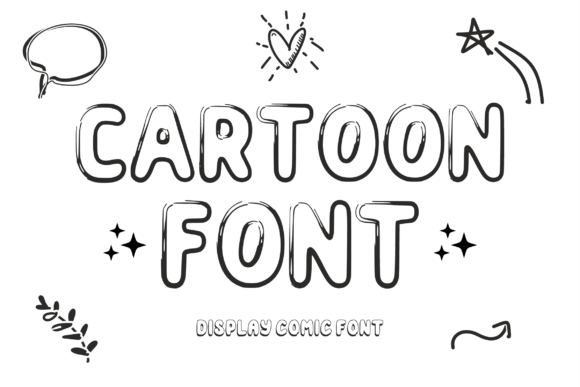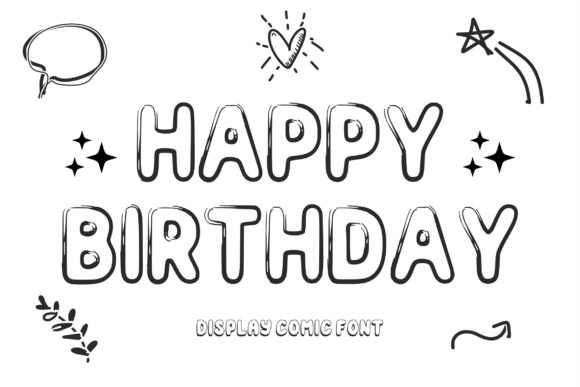
Introduction to Child Sketch Font
Introducing “Child Sketch” is a cheerful and modern children’s Outline font, each character is cute so it is easy to recognize.
Perfect for sublimation design of t-shirts, mugs, tote bags, animations, comic titles, and more Pour your imagination here.
Key Features of Child Sketch Font
Why Choose Child Sketch Font?
Child Sketch Font offers exceptional quality and versatility, making it a valuable addition to your design toolkit. Whether you’re creating for personal projects or commercial use, Child Sketch Font delivers professional results.